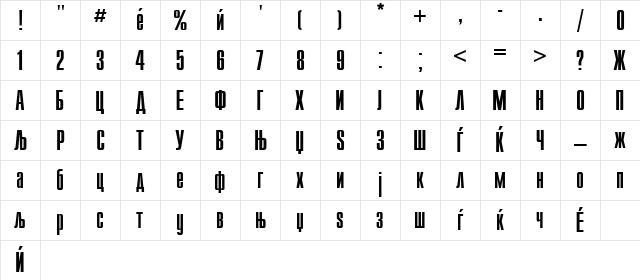
X_Compact Normal
Design Context for X_Compact
X_Compact is a composed and adaptable typeface that performs quietly and consistently across a wide range of design contexts. Its narrow stance lets it pack a punch even in space-constrained designs.